It takes more than a good plotline and strong characters to make your book stand out. You’ll also need to carefully consider the right font for the book cover, title, and of course, the actual book text. So, whether you are self-publishing or have an agent, consider these best fonts for books.
Best Fonts for Book Covers and Book Titles
They say, “Don’t judge a book by its cover.” But the reality is that many readers look at the cover before any other parts of the book. That split second is all that it takes for a person to take your book off the shelf and check it out. So, you must nail the perfect font from the inside out. Here are some of the best book cover fonts for fantasy, horror, and other genres.
Tip: Your font choice will affect the cover design. So, be in touch with book designers that can match the look and feel you want to achieve for your book.
Minion Pro
Minion Pro is a serif typeface that has been around since 1990. Although not as old as other fonts on the list, this Adobe Original typeface is a clear favorite amongst designers because of its clean strokes, which were inspired by old typefaces seen during the late Renaissance. Its versatility is not limited to book covers and titles; Minion Pro is one of the best readable fonts for any use case.
DIN
DIN is another great sans-serif typeface for your book cover and design. It exudes simplicity yet manages to command authority. As a matter of fact, DIN is the font of choice for many signages. For literary works, this font works best under the fantasy genre.
Bodoni
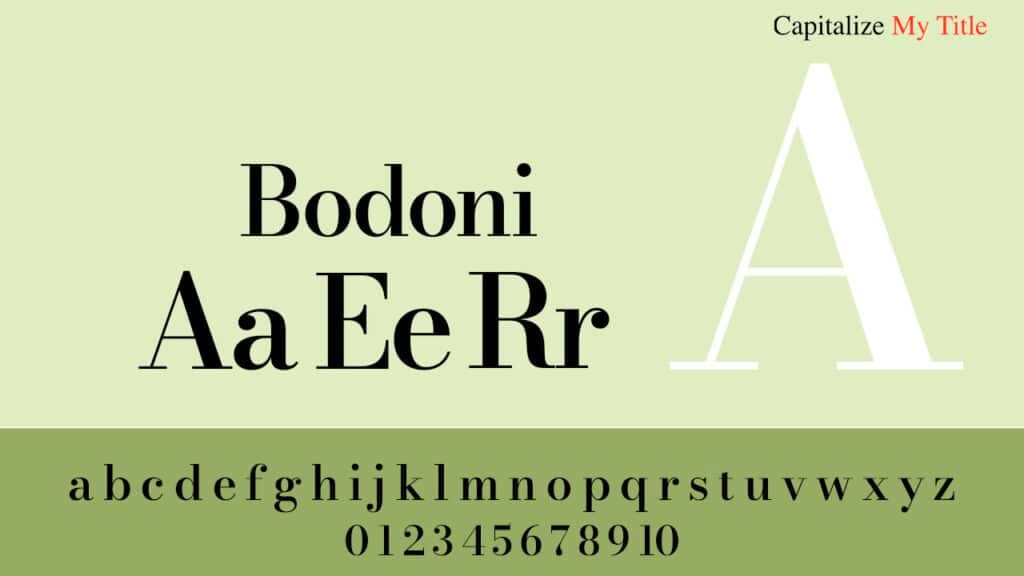
The Bodoni typeface gets its name from its inventor Giambattista Bodoni. Among its distinguishing characteristics is a centralized tail in the “Q” and an ever-so-subtle curve in the “J.” This font appears in a wide range of literature and media, from works by Dante to modern movie advertising. Architecture and fashion publications often use Bodoni font, especially for article titles.
Gotham
Gotham is one of the most popular modern sans-serif fonts. Commissioned by GQ magazine, the font exudes masculinity thanks to its geometric structure and wide apertures, which were inspired by mid-20th century New York signages. Today, the font is one of the best fonts for books. Like many other fonts in this list, Gotham is a favorite choice for many companies, including Carton Network, Ford, and Chanel. Even Barack Obama’s 2008 campaign used Gotham.
Futura
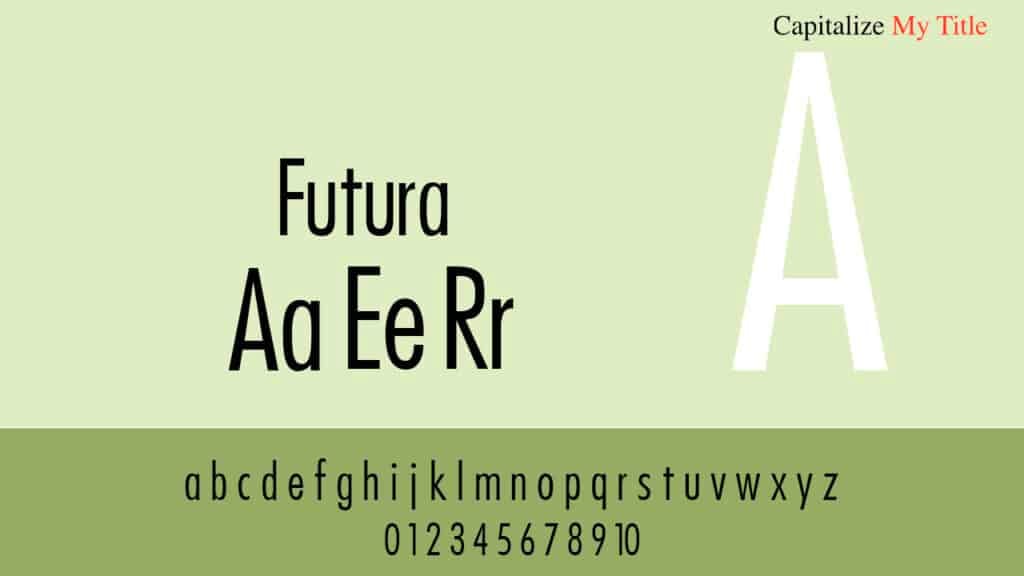
Futura is an apt name for this typeface, even though the font is nearly a century old. Its original purpose was to convey the spirit of the European avant-garde culture. It lacks any hint of decoration, leaning instead on geometric simplicity and functionality. Non-fiction books on future trends, as well as science fiction novels, benefit from this typeface.
Univers
Univers is one of the most legible fonts for books that fall under the “neo-grotesque” category. The font is utilitarian and versatile with its evenness across the letters. In fact, many corporate logos, most notably eBay, sport Univers fonts. It works in multiple genres, and you can easily combine it with other fonts on a book cover.
Helvetica
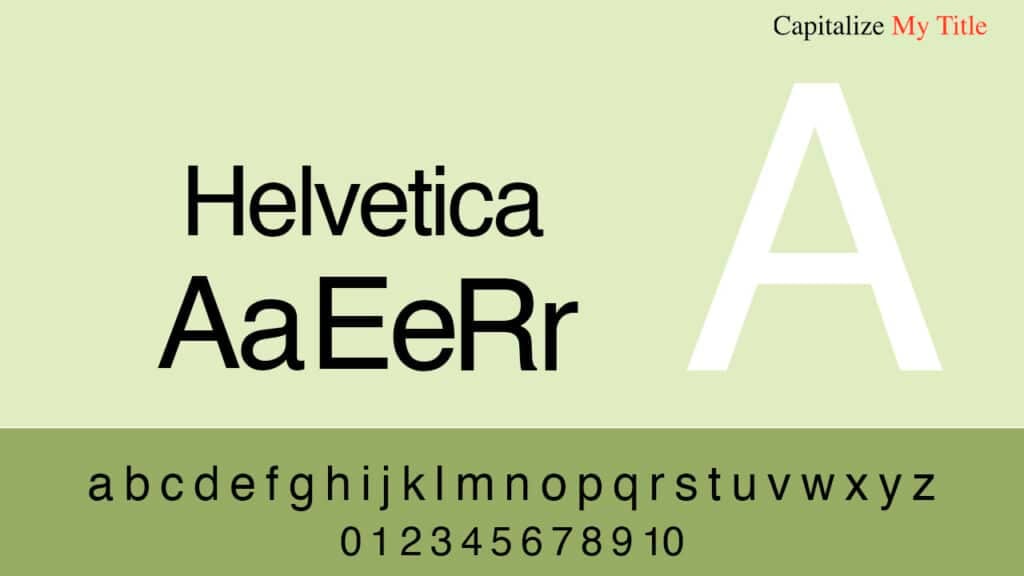
Another neo-grotesque design is the Helvetica which was released during the 1950s. Immensely popular worldwide, this font serves one purpose: to be dull – even though it is technically a sans-serif. With this in mind, Helvetica is suitable for informational texts that stress content over form.
Pacifico
Inspired by surfer-centered California beach culture, this typeface mimics brushed script writing with uncanny precision. Above all, it is fun to use for book covers and titles. For this reason, Pacifico fits well with children’s literature, young adult, and romance novels.
Tangerine
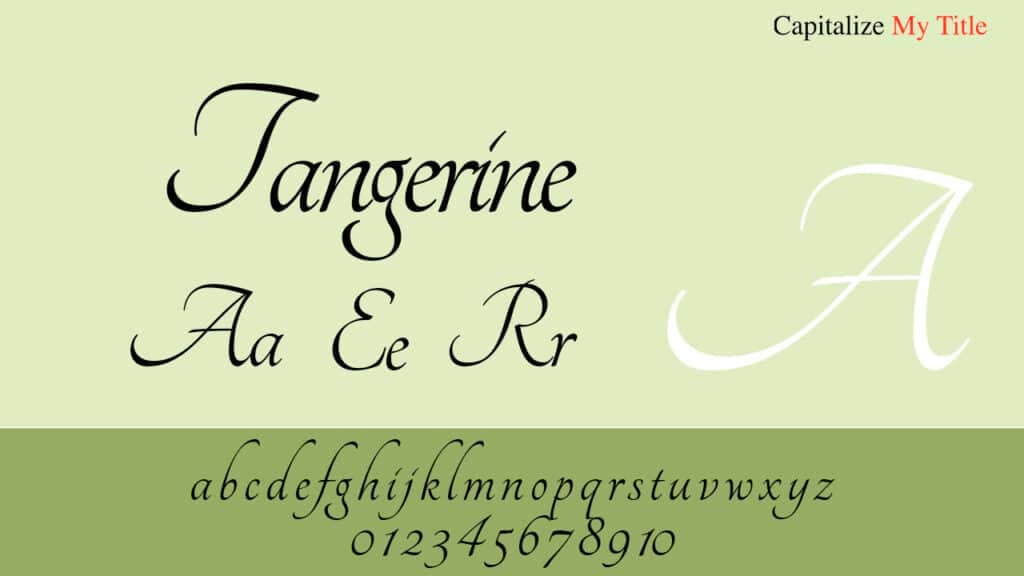
This is another calligraphy-like font that draws from script font dating back to the Italian Renaissance. Tangerine letters are marked by a tall ascender, i.e., an upward extension that reaches beyond its allotted height. This feature increases the font’s readability.
The Tangerine typeface is a natural fit for romance novels.
Best Fonts for Book Text
Now for the book text. Generally, first-time authors would go for Times New Roman and Arial, which are the two of the most popular fonts for business cards. There’s nothing wrong with these fonts. However, there are times when they don’t fit the book genre. If you already tried either fonts, but it looks bland, here are other best book fonts for text that you should try.
Tip: Besides capturing the essence of your book’s story, you should also consider legibility and readability.
Baskerville
The Baskerville font features sharp seraphs and round, taller, and thinner letters. Plus, there are wider differences between thick strokes and thin ones.
It works for all kinds of fiction: John Milton’s Paradise Lost is but one example. Beyond that, Baskerville appears in classic reprints of Virgil and ancient religious works. If you write inspirational stuff, this can be one of the best fonts for books.
Crimson Pro
Last on our list of best fonts for books is Crimson Pro, which also belongs under the serif typeface family. Crimson Pro is different from Crimson and Crimson Prime; it’s a cross between the two fonts. Jacques Le Bailly, who was commissioned by Google, synthesized the older Crimson. The result is the Crimson Pro font which is optimized for better readability, especially for longer texts.